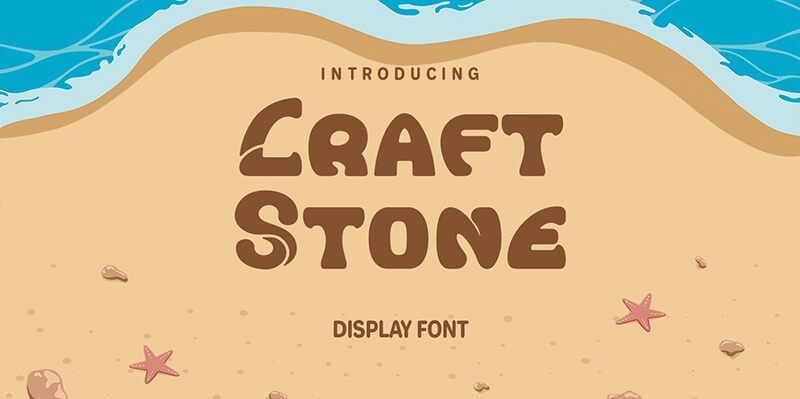
Craftstone font family is another delightful product developed by Ronin Design for personal projects. The font family carries 2 different font styles that users will enjoy exploring and experimenting with. It’s hard to imagine such an asset without a whimsical, informal, and friendly appearance. All letters are characterized by their rounded organic shapes and retro-inspired design.
Use Craftstone for posters, branding designs, book and movie titles, labels, headlines, and invitations. With all those projects and more, you’ll succeed in bringing an earthy and approachable mood into your visual communication.